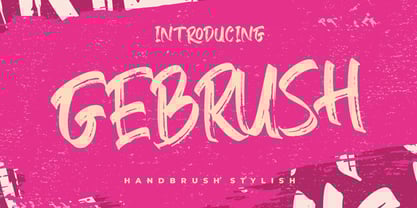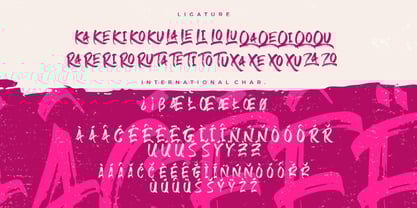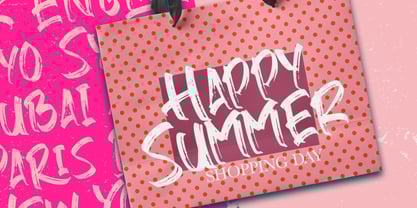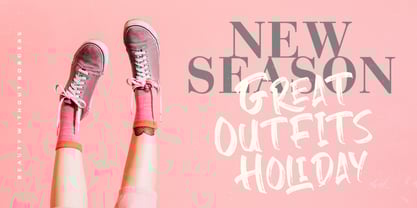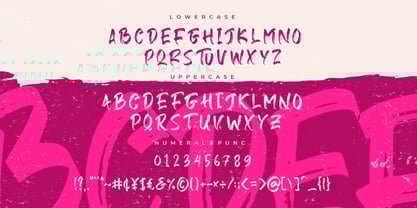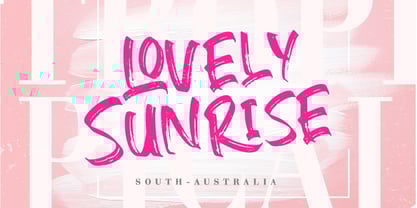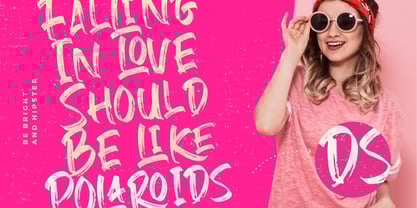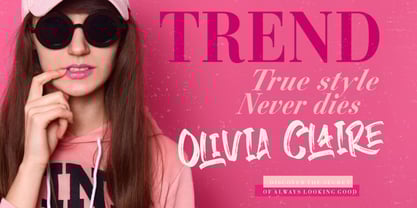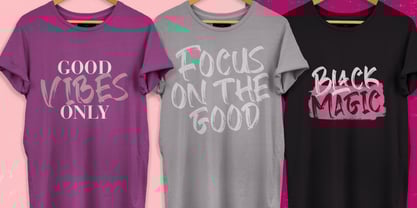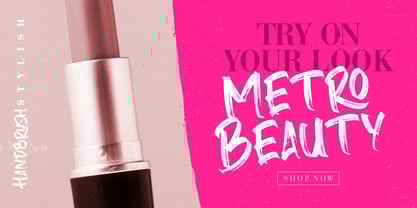
Gebrush
by Creatype Studio
The Gebrush Font Family was designed by Rian Rahardi and published by Creatype Studio. Gebrush contains 1 styles. More about this family
Gebrush is a vibrant handbrush font full of character, bold movement, and expressive strokes. It's designed to scream creativity—loud, bright, and full of personality. The raw brush texture and imperfect edges bring an authentic, handmade vibe that adds charisma to every word. Perfect for brands and creators who thrive in expressive, youthful, and trend-forward industries—think Instagram graphics, fashion editorials, lifestyle brands, and streetwear packaging.
Looking to inject bold personality into your designs? Gebrush is your go-to brush font that instantly brings energy, attitude, and stylish chaos to your work—perfect for brands that don't whisper, but shout.
Designers: Rian Rahardi
Foundry: Creatype Studio